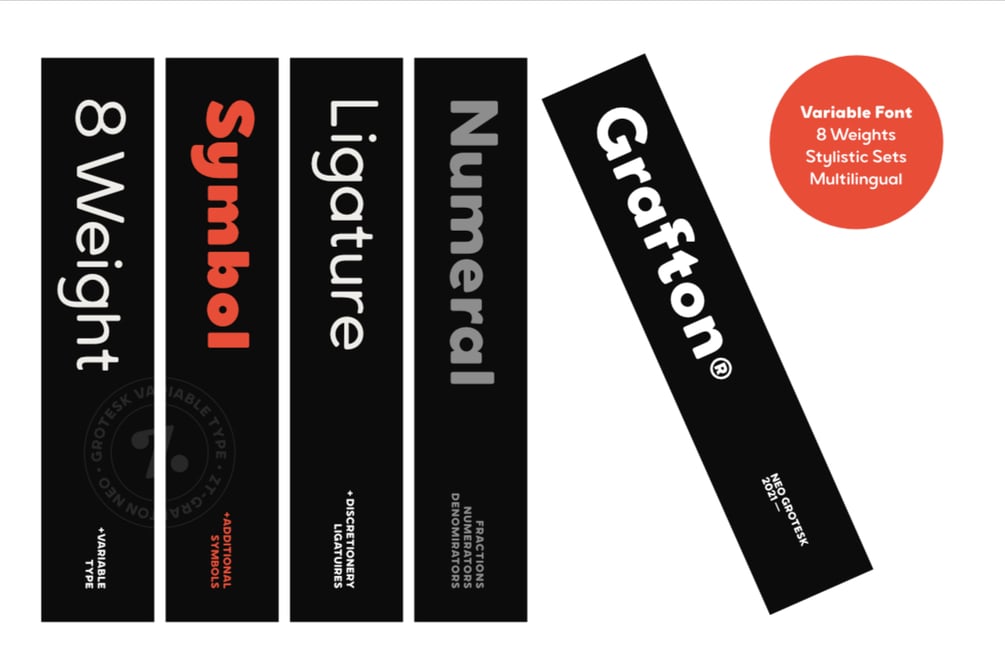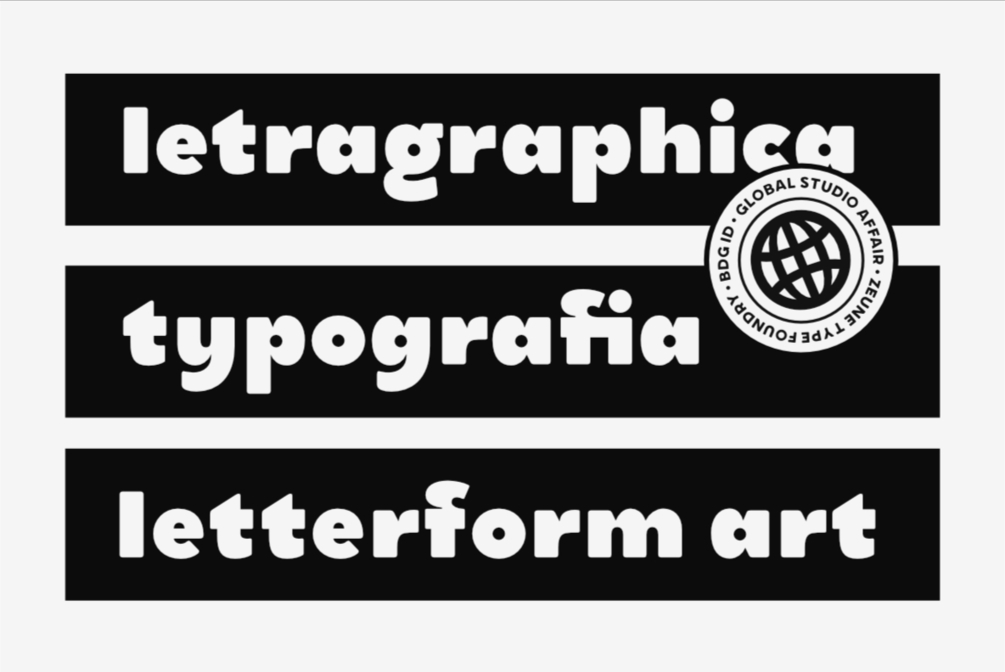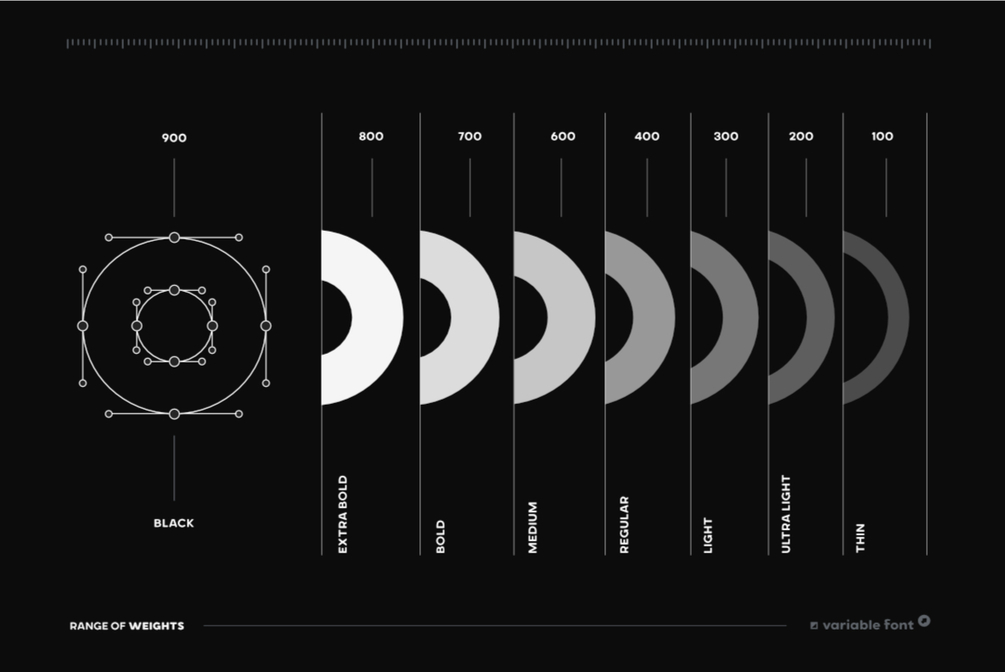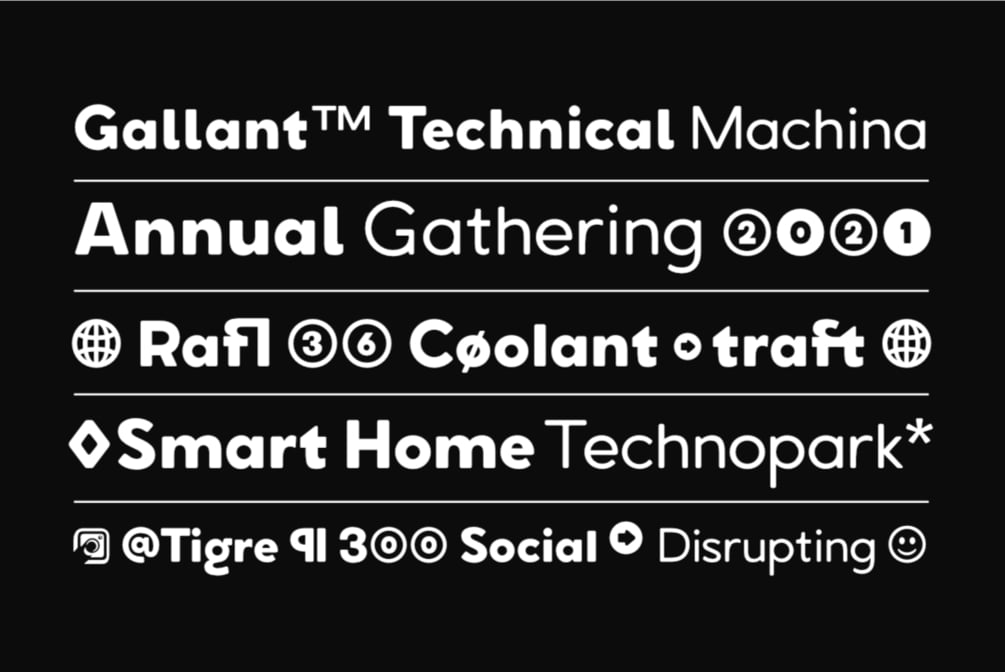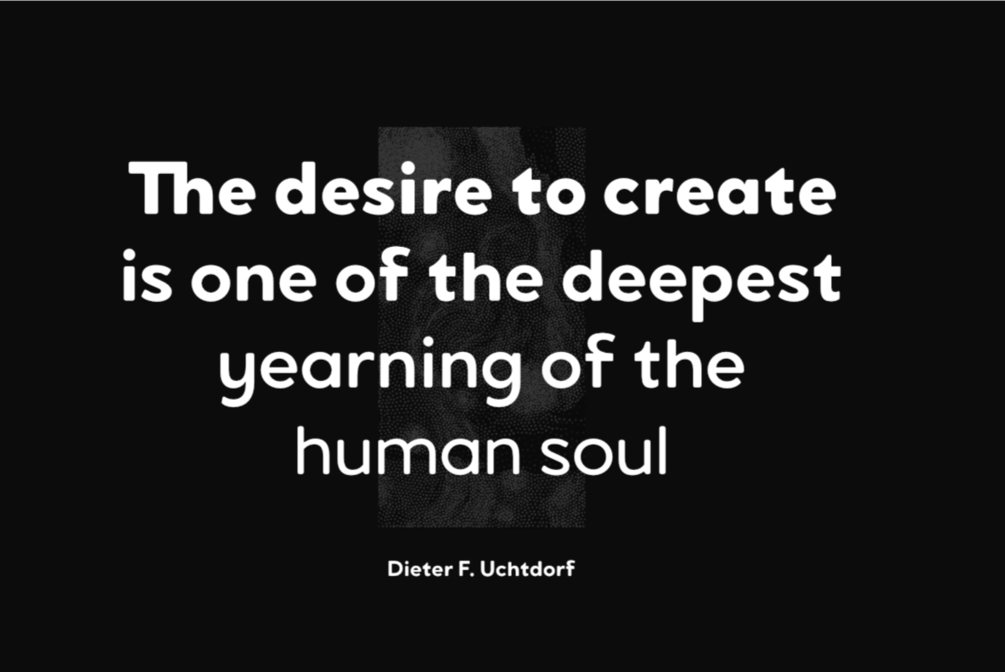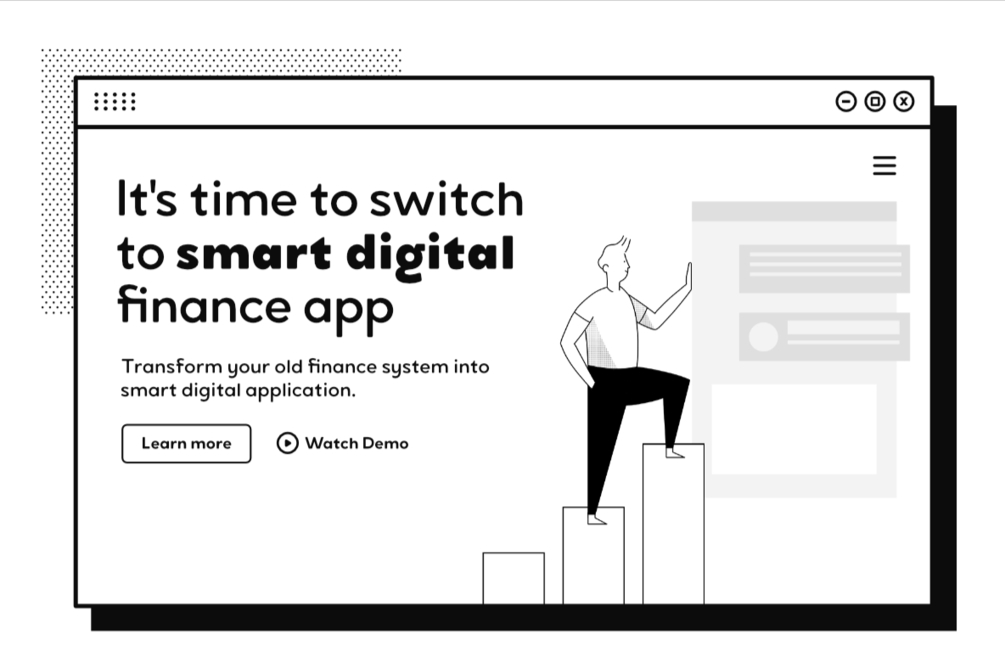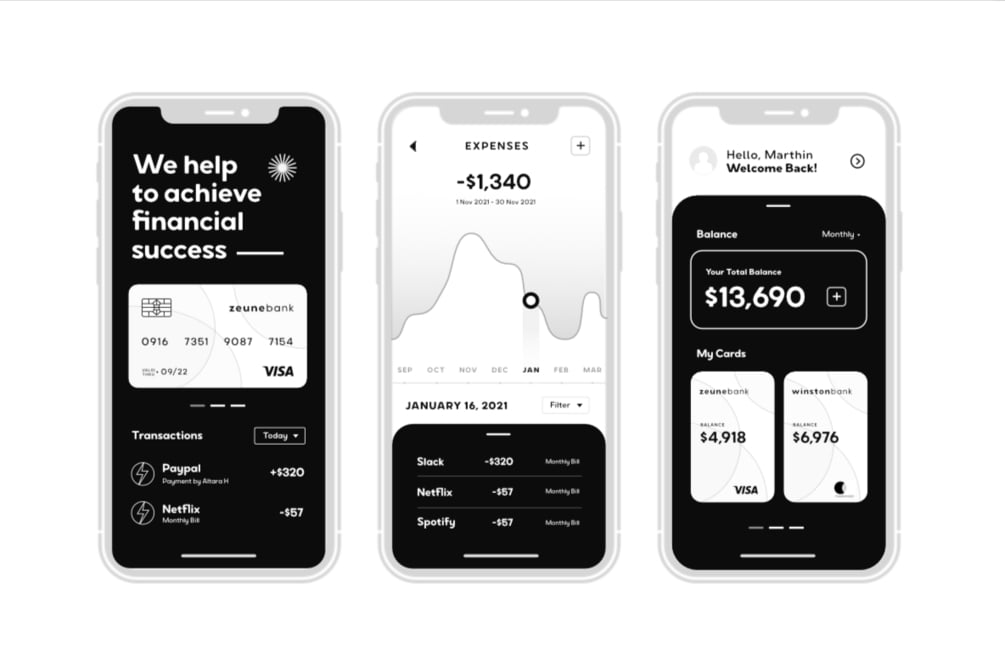
ZT Grafton Regular
ZT Grafton is a neo-grotesque typeface based on geometric shapes with contemporary, friendly, and strong emotion. Built from scratch to be calm, smooth, and clean, while subtle humanist influences add warmth to this typeface.